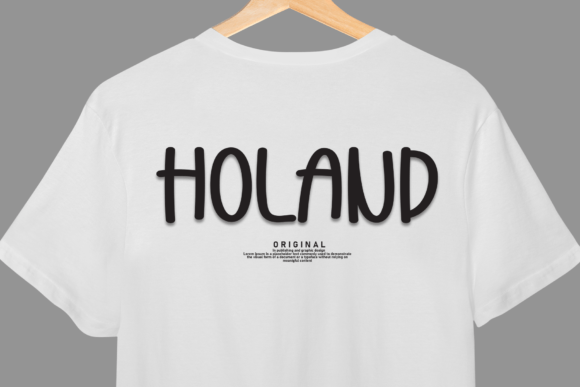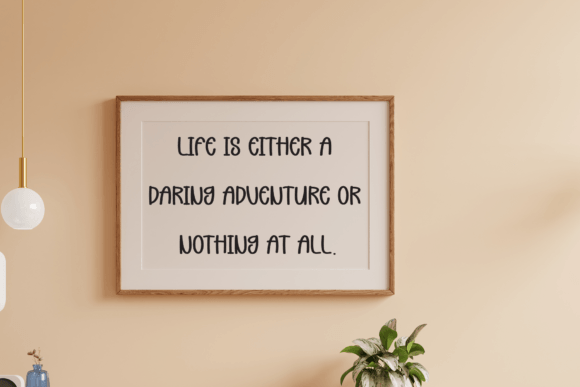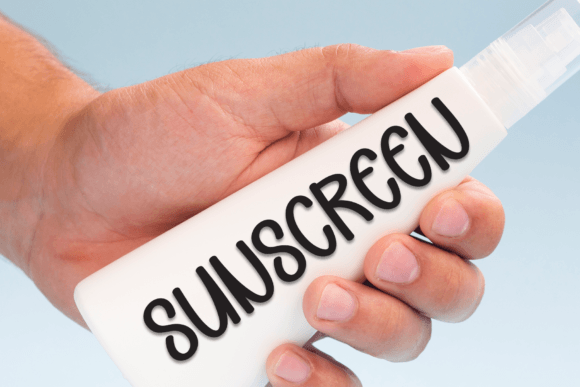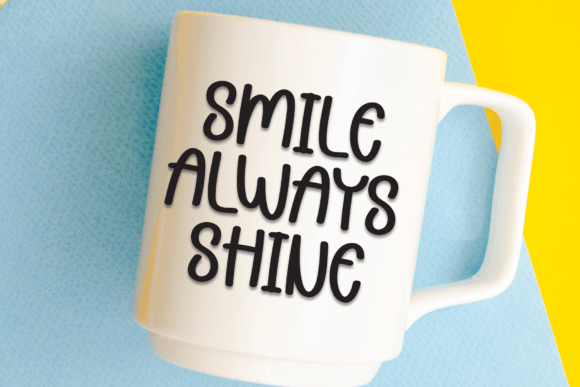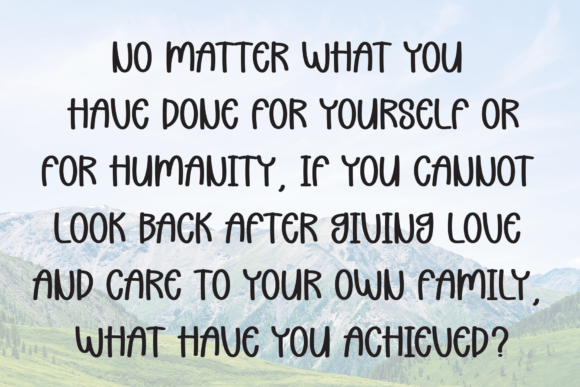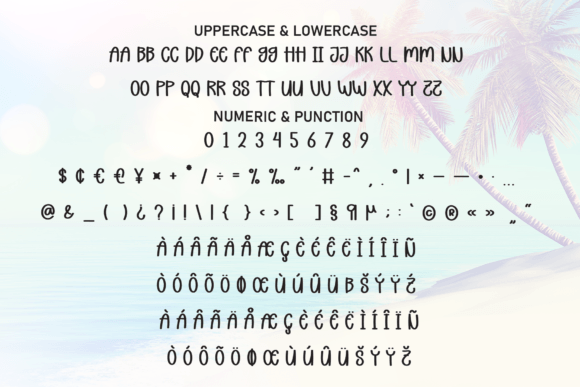
Beach Vibes Font: The Perfect Choice for Whimsical Designs
Are you looking for a font that captures the essence of carefree beach vibes? Do you want to add a touch of playfulness and whimsy to your designs? Look no further than the Beach Vibes Font! This charming, gentle handwriting-inspired display font is perfect for crafting wedding invitations, cards, and other designs that require a dash of merriment and joy.
What is Beach Vibes Font?
Beach Vibes Font is a beautifully crafted display font that exudes a sense of relaxation and playfulness. Its endearing and gentle aesthetics make it an ideal choice for designers and crafters who want to add a personal touch to their work. This font is perfect for creating eye-catching titles, headings, and text that require a touch of whimsy and fun.
Key Features of Beach Vibes Font
- Handwriting-inspired design: Beach Vibes Font features a beautiful, handwritten design that gives it a personal and carefree feel.
- Playful and whimsical: This font is perfect for designs that require a dash of playfulness and whimsy, making it ideal for wedding invitations, cards, and other celebratory designs.
- Easy to read: Despite its playful design, Beach Vibes Font is easy to read and understand, making it perfect for use in a variety of design applications.
- Versatile: This font can be used in a variety of design applications, from digital designs to print materials.
Uses for Beach Vibes Font
Beach Vibes Font is a versatile font that can be used in a variety of design applications. Here are some of the most popular uses for this font:
- Wedding invitations and cards: Beach Vibes Font is perfect for crafting beautiful and unique wedding invitations and cards that reflect the playful and romantic nature of the occasion.
- Party invitations: This font is also great for creating party invitations that require a dash of playfulness and whimsy.
- Digital designs: Beach Vibes Font can be used in digital designs, such as social media graphics, blog posts, and website headers.
- Print materials: This font can also be used in print materials, such as brochures, flyers, and posters.
Tips for Using Beach Vibes Font
Here are some tips for using Beach Vibes Font in your designs:
- Use it sparingly: Beach Vibes Font is a display font, so it’s best to use it sparingly to create emphasis and add visual interest to your designs.
- Pair it with other fonts: This font pairs well with other fonts, such as sans-serif fonts, to create a visually appealing design.
- Experiment with colors: Beach Vibes Font looks great in a variety of colors, so don’t be afraid to experiment and find the perfect color scheme for your design.